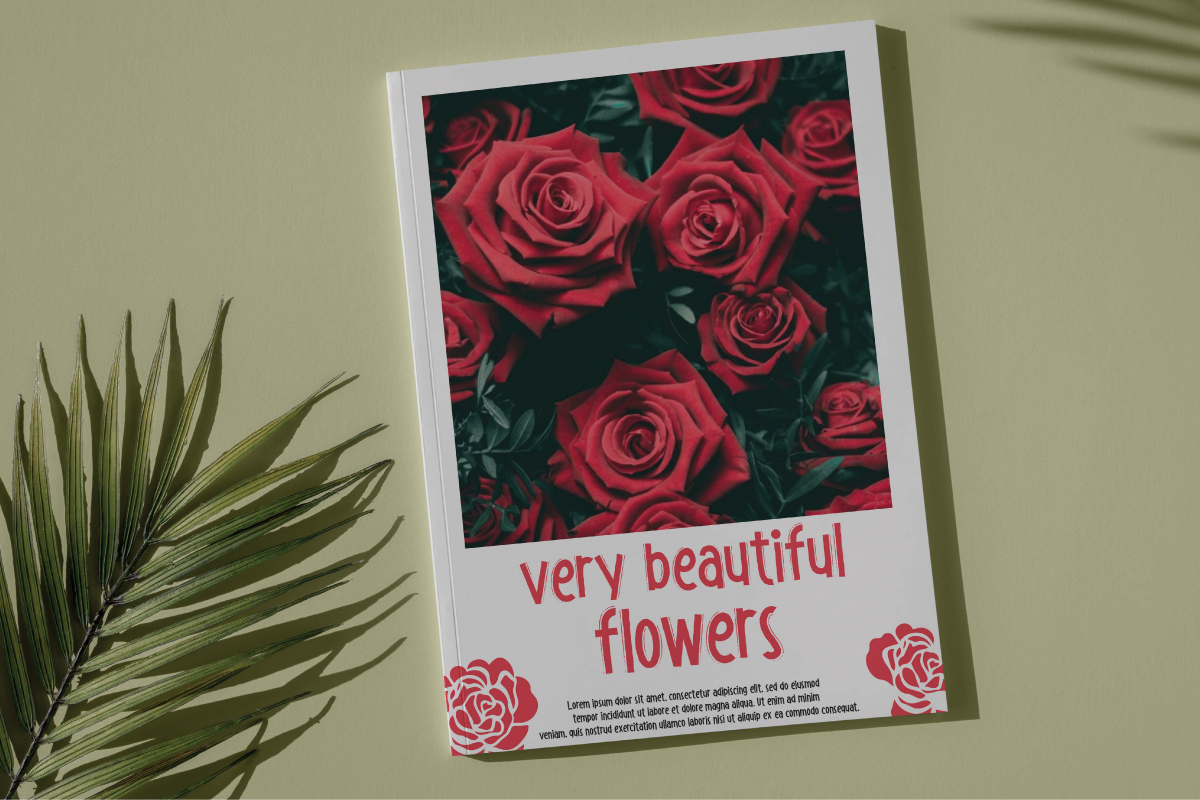
Bradicals Font
Bradicals Display Font
This is a distorted eroded display font with mysterious and simple style. This font is suitable for industries in the fields of café, craft, fashion, fast food, publishing, printing, restaurants, wedding, etc. And this font will be perfect for your projects such as brand logo, business card, invitation, label, print materials, product packaging, quote, signage, title, and many more! You can see the demo font below, input any word you want so you can see what it looks like: